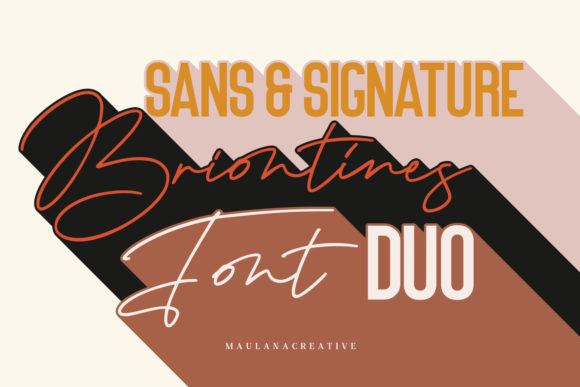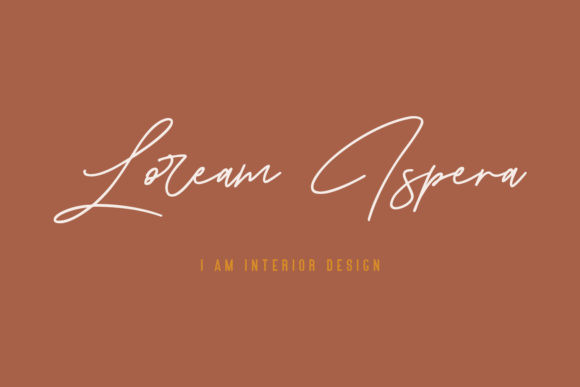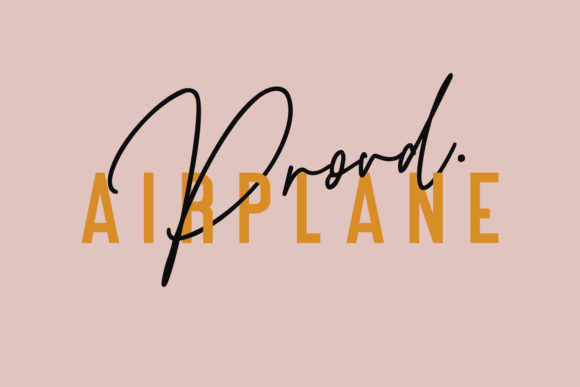
Briontines Font
Briontines duo is a match made in heaven. This display font will elevate a wide range of design projects to the highest level, be it branding, headings, wedding designs, invitations, signatures, logos, labels, and much more!